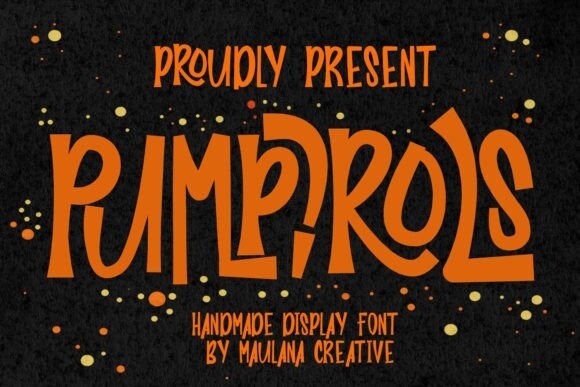
Pumpirols Font
Designer: Maulana Creative
Pumpirols is a playful and unique handmade display font. Its letters have a fun, hand-drawn style, perfect for adding a creative and personal touch to your designs. The font stands out with its bold, quirky shapes, making it great for posters, invitations, or any project that needs a cheerful and artistic look.